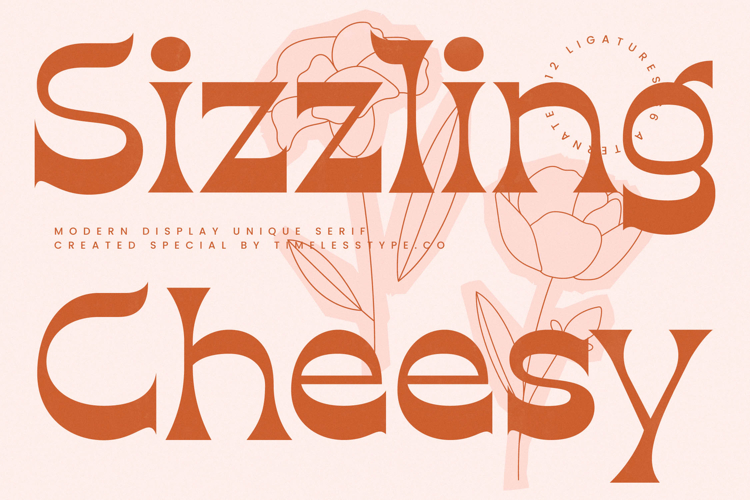
Sizzling Cheesy - Modern Display Unique Serif
The Sizzling Cheesey Typeface is a modern display serif font with a bold, unique, and experimental style. Featuring 12 ligatures and 64 stylistic alternates, this font offers designers great flexibility to create typography that feels artistic, stylish, and truly distinctive. Its thick letterforms, combined with sharp geometric details and curved ornaments, bring a contemporary modern feel infused with a touch of futurism.
This typeface is highly effective in editorial design, especially for fashion magazines, artistic headlines, and creative book covers. The alternates and ligatures provide room for exploration, allowing layouts to appear fresh, dynamic, and expressive.
In branding and packaging, Sizzling Cheesey is an excellent fit for premium products, creative brands, modern cosmetics, high-end fashion, and artisan beverages. Its bold and distinctive typography conveys an exclusive and iconic image, helping brands stand out.
For entertainment and promotional design, this font works beautifully on movie posters, art events, music album covers, and cultural festival branding. Its modern and theatrical character enhances visual storytelling with a daring and expressive presence.
In the field of digital design, Sizzling Cheesey performs at its best across social media content, website branding, digital campaigns, and motion graphics. With multilingual support, it adapts seamlessly to global projects that demand high-end typographic consistency.
In short, Sizzling Cheesey Typeface is a unique serif display font designed to bring modern style, elegance, and bold distinction. Perfect for editorial, branding, packaging, entertainment, advertising, and digital campaigns, this font transforms typography into an iconic, stylish, and unforgettable design element.